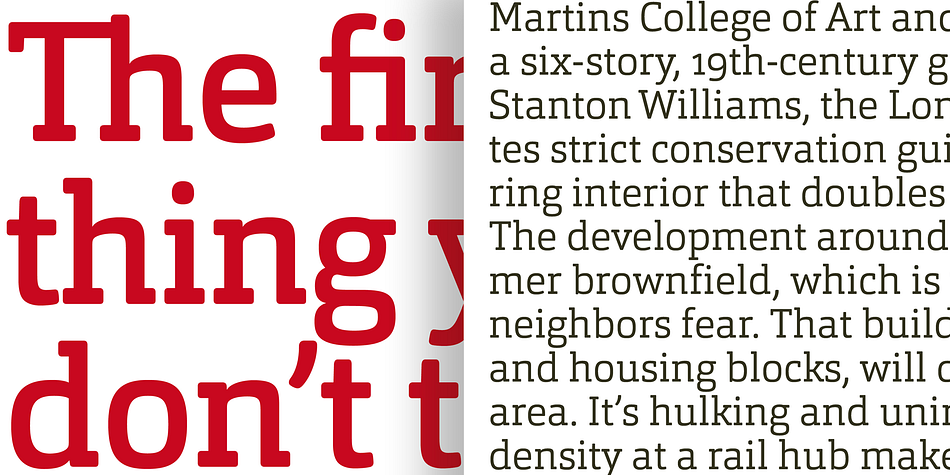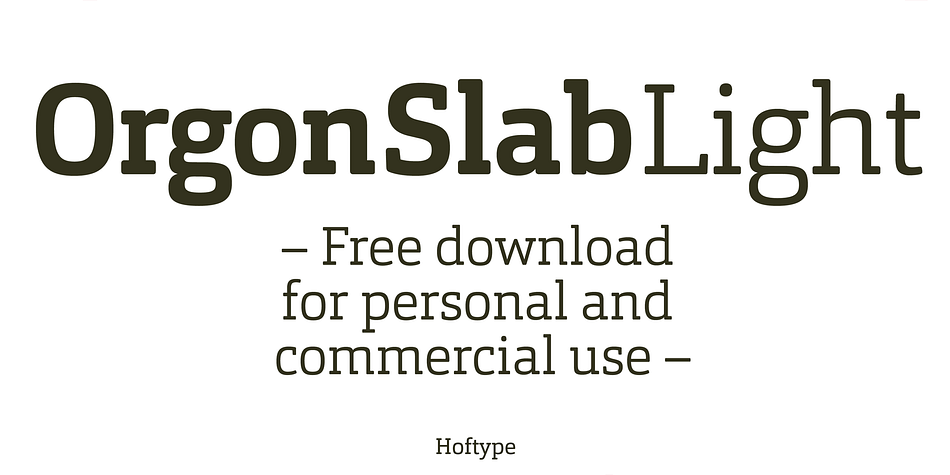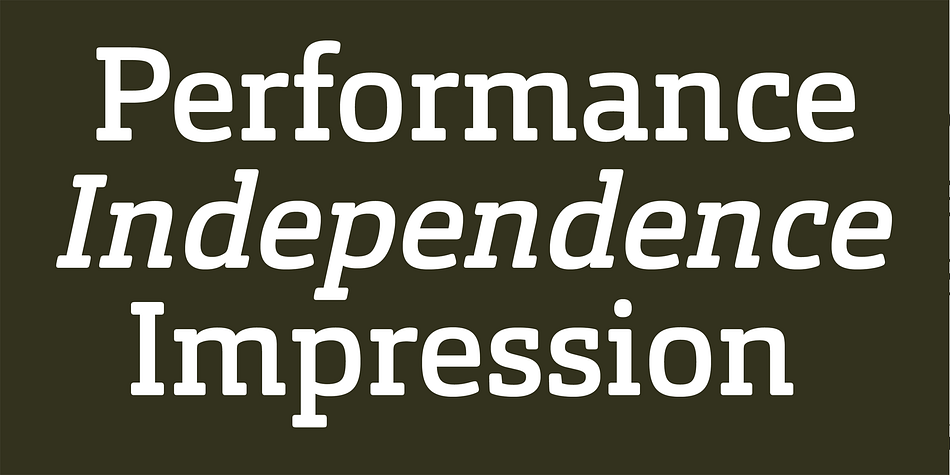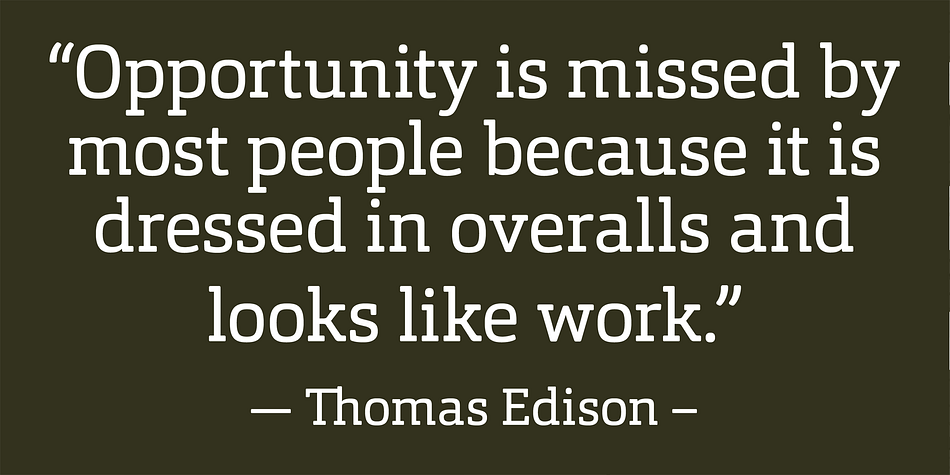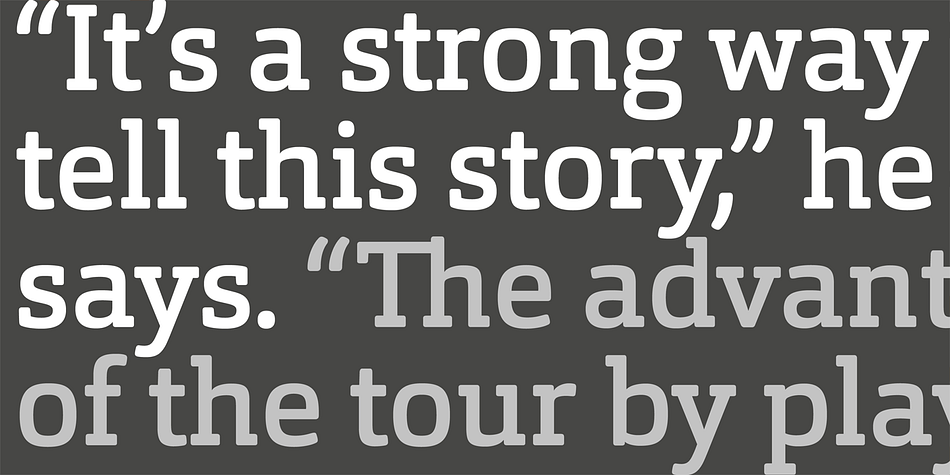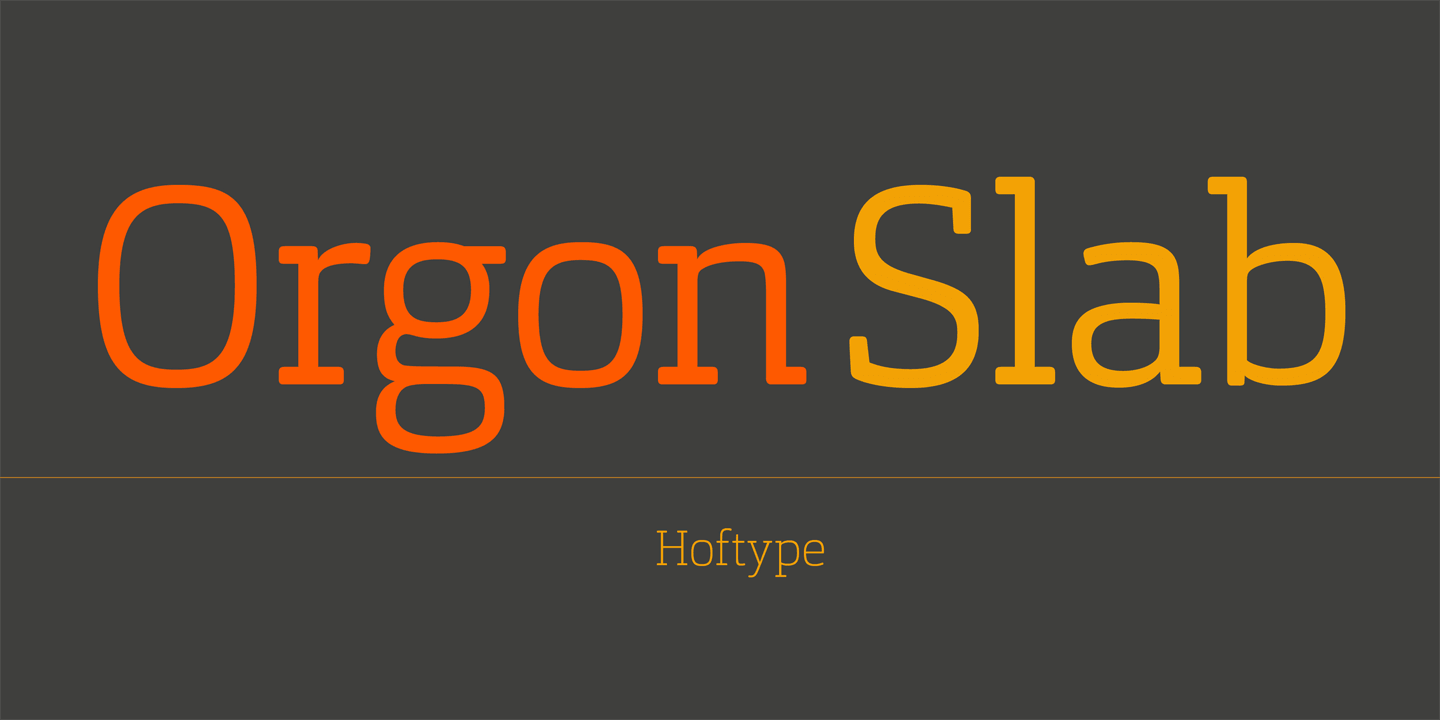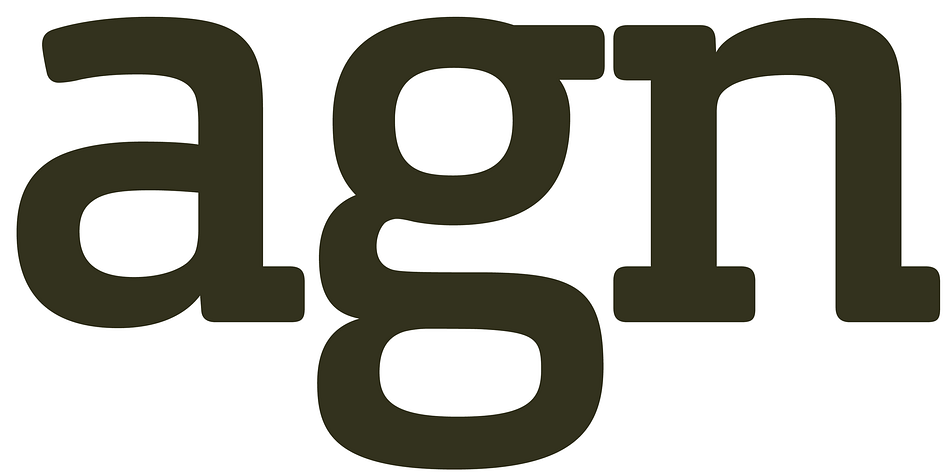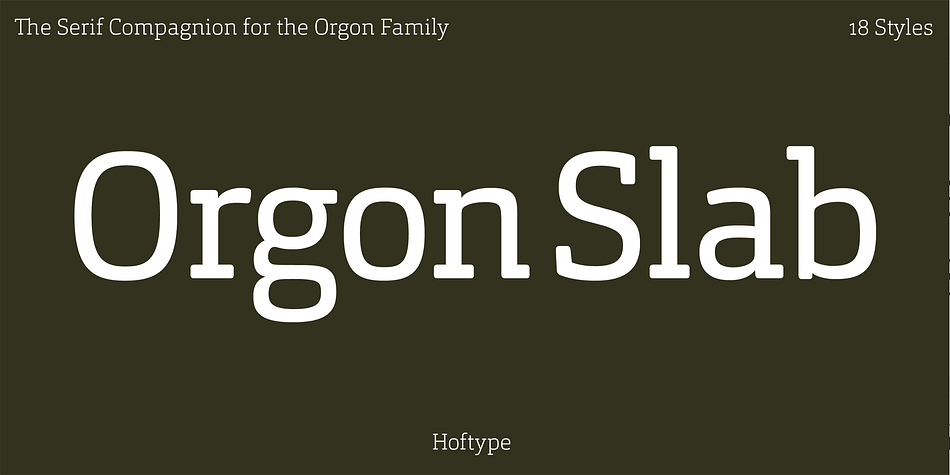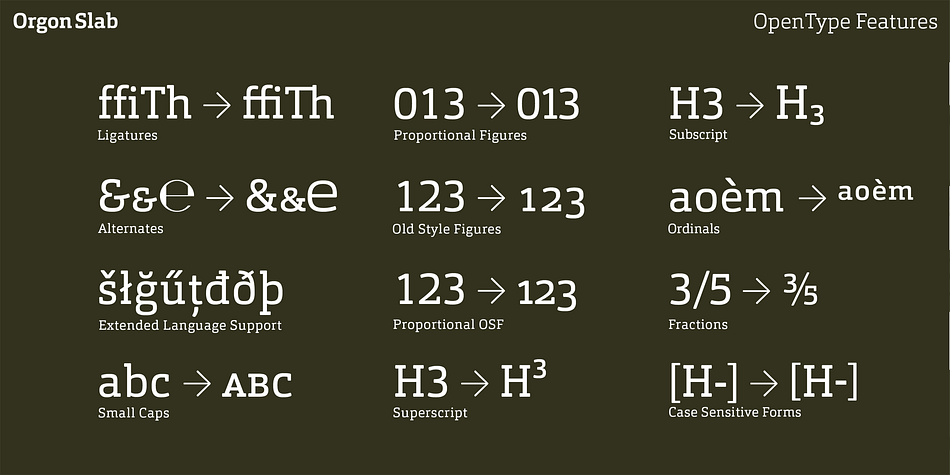
Orgon Slab is a slab serif font family. This typeface has sixteen styles and was published by Hoftype.
Orgon Slab complements the Orgon family with its clear, unexcited appearance. It offers high readability both for desktop and web applications.
The Orgon Slab consists, as does the Orgon family, of 16 styles and is well suited for ambitious typography. It comes in OpenType format with extended language support. All weights contain ligatures, small caps, superior characters, proportional lining figures, tabular lining figures, proportional old style figures, lining old style figures, matching currency symbols, fraction- and scientific numerals and matching arrows.